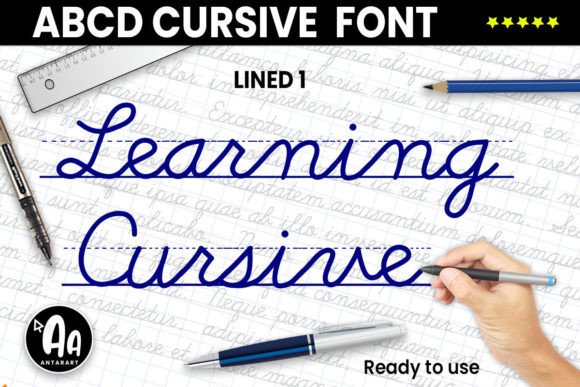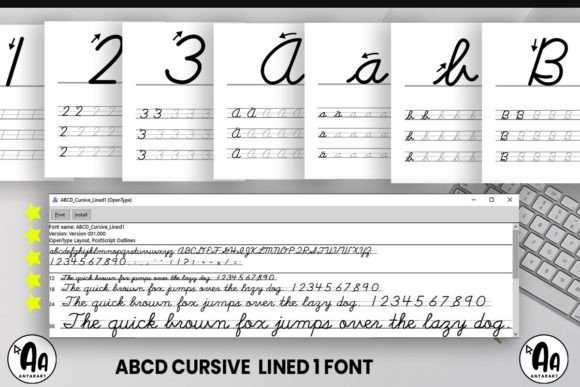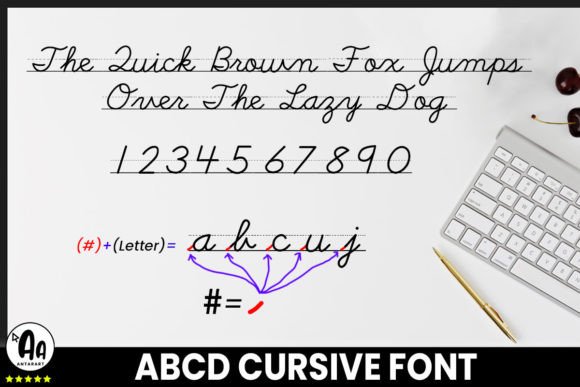
About Abcd Cursive Lined1 Font
Abcd Cursive Lined1 (Ruled) Font
This handwritten font helps you create thousands of worksheets using any software. It is a great learning resource for those who want to learn or teach Cursive handwriting enjoyably and interactively.